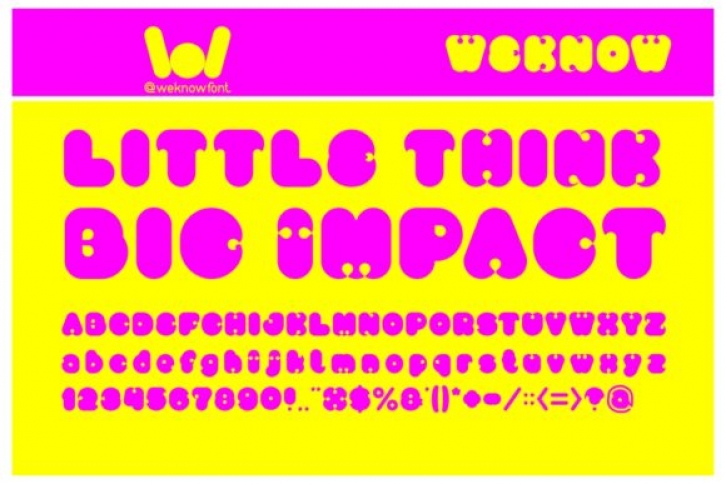
Little Think Big Impact is a bold and unique display font. Clean and a little bit quirky, this font is the perfect fit for all of your logos, branding, social media, and crafty DIY projects.